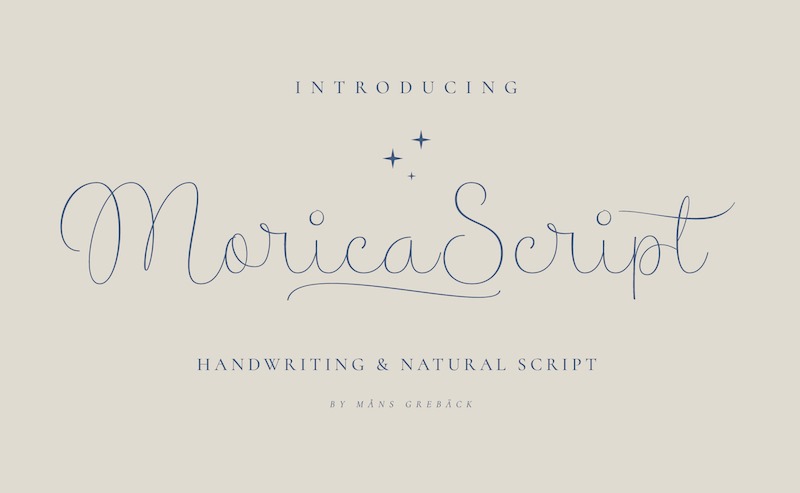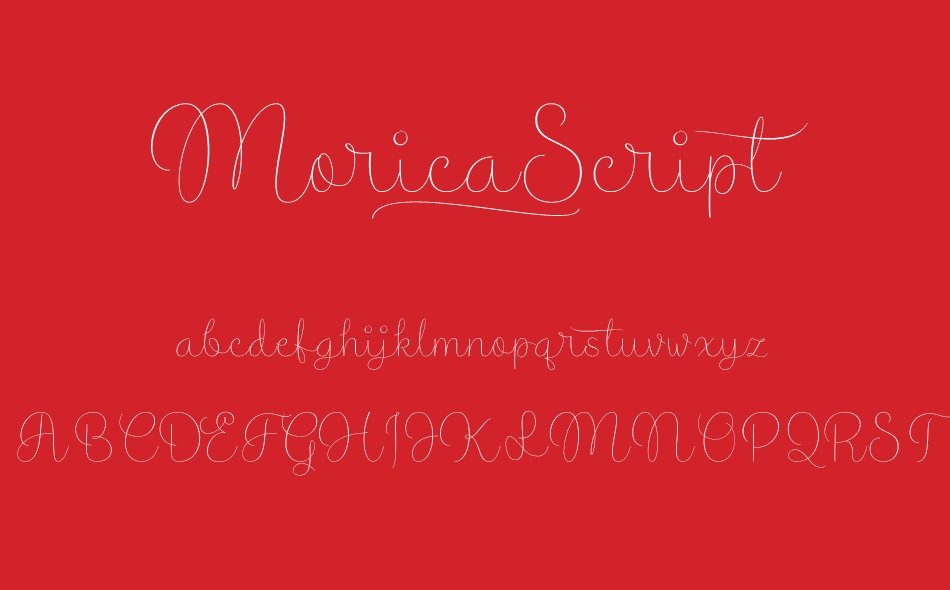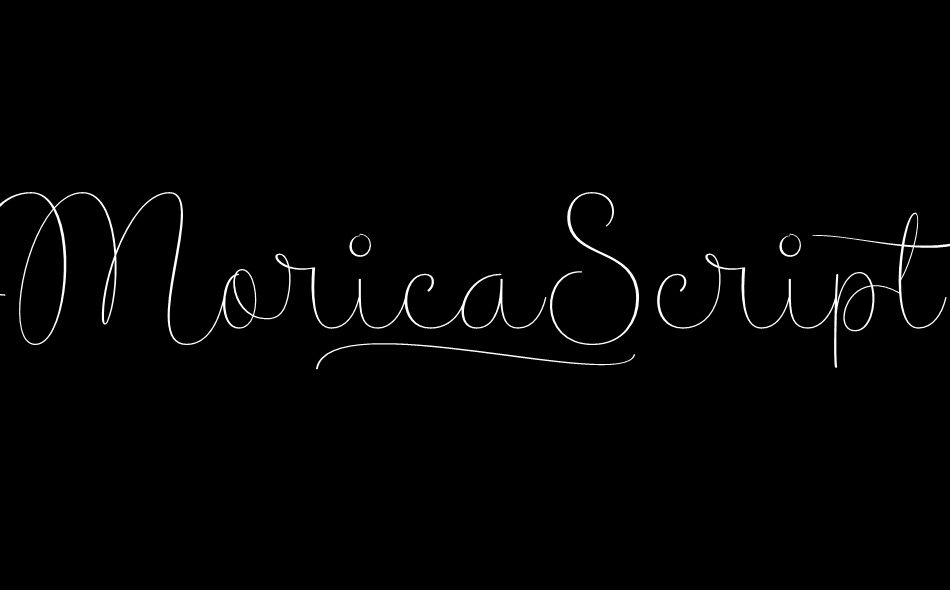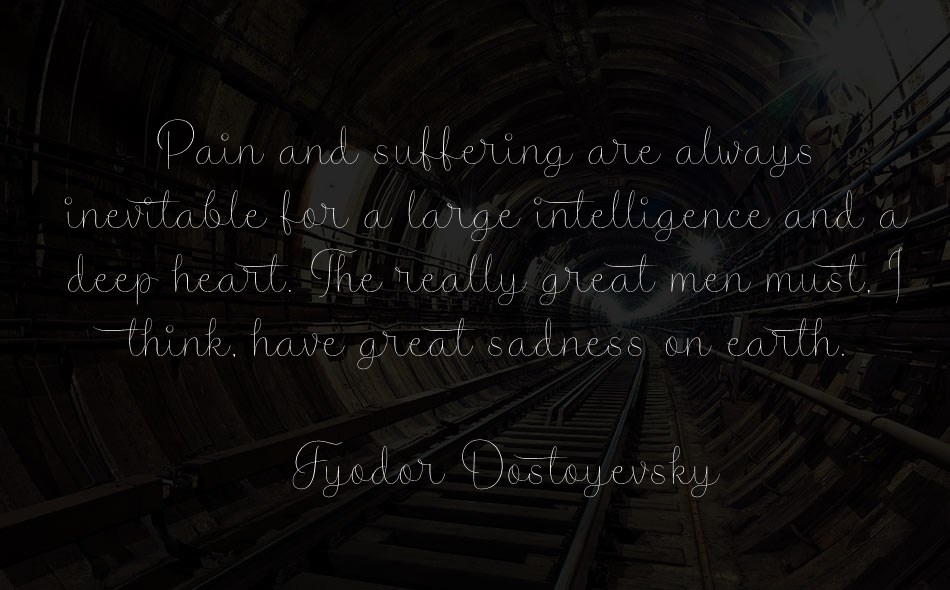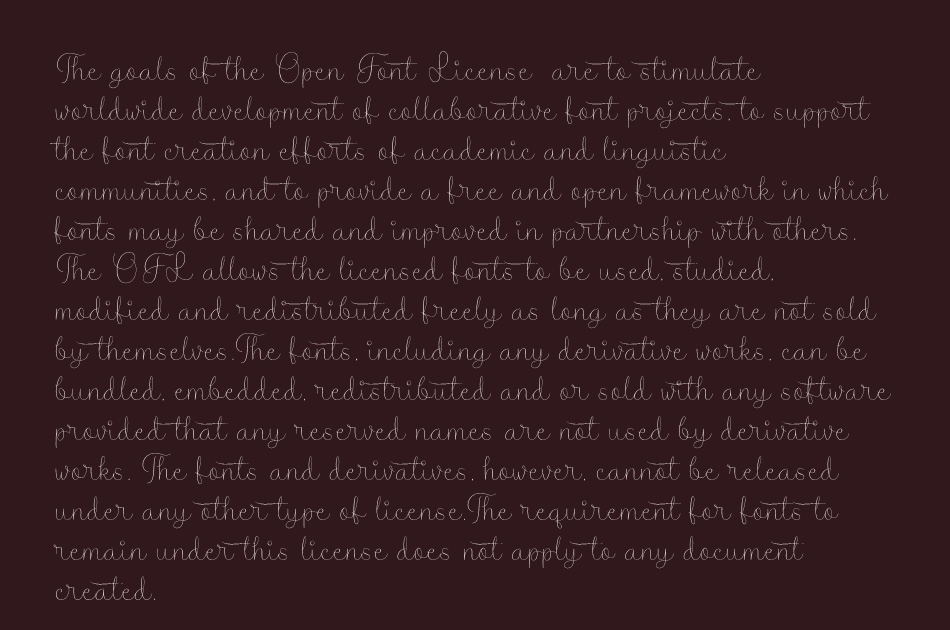
Morica Script font
Morica Script, designed by Mans Greback, is a delicate and romantic handwritten typeface with a fine touch.
Its thin lines and whimsical style bring a sense of elegance and charm to your creative projects.
Use underscore _ to make an swash anywhere in a word.
Example: Lov_ing
Use multiple underscores to make longer swashes.
Example: Mag___ical
Morica Script, designed by Mans Greback, is a delicate and romantic handwritten typeface with a fine touch. Its thin lines and whimsical style bring a sense of elegance and charm to your creative projects. Perfect for wedding invitations, heartfelt letters, and intimate stationery, Morica Script embodies the beauty of naive handwritten communication.
Mans Greback sought to capture the emotional essence of heartfelt words, crafting each character with attention to detail and a gentle, delicate touch.
The font is built with advanced OpenType functionality and has a guaranteed top-notch quality, containing stylistic and contextual alternates, ligatures, and more features; all to give you full control and customizability. It has extensive lingual support, covering all Latin-based languages, from Northern Europe to South Africa, from America to South-East Asia. It contains all characters and symbols you'll ever need, including all punctuation and numbers.
Mans Greback, a Swedish typeface designer, is known for his dedication to creating unique and eye-catching fonts. Aiming to infuse emotion into his work, Mans' passion for design and typography has led him to create a diverse portfolio that resonates with designers worldwide.